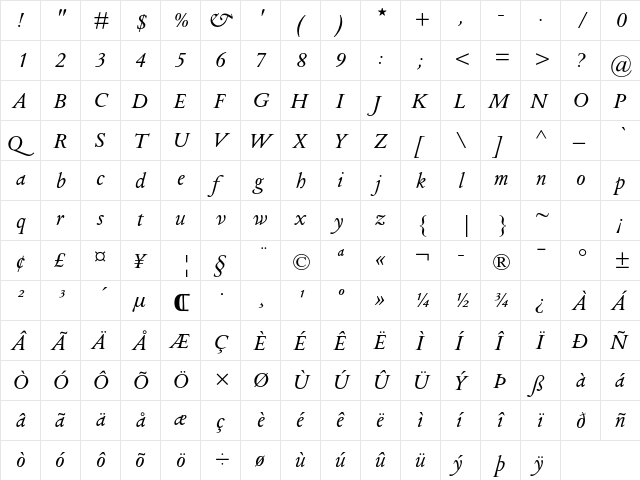
Columbus MT Std Italic Font Preview
Columbus MT Std Italic
Columbus MT Std Italic Font Details
Design Context for Columbus MT Std Typeface
Columbus MT Std is a composed and adaptable typeface that performs quietly and consistently across a wide range of design contexts. The dynamic lean of this cut emphasises speed and emphasis in any layout.
Pro Tip: Use Columbus MT Std for emphasis, pull quotes, and subheadings where its slanted energy can add rhythm to the layout.